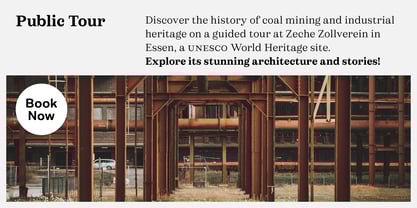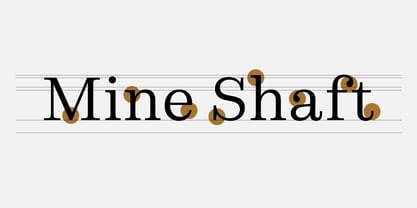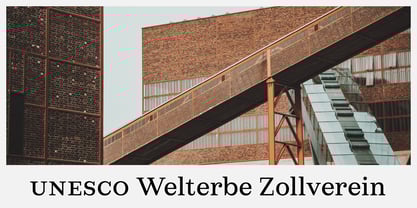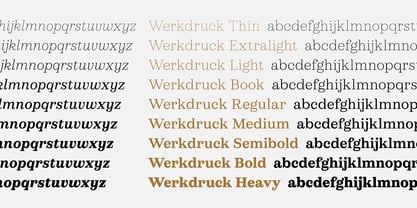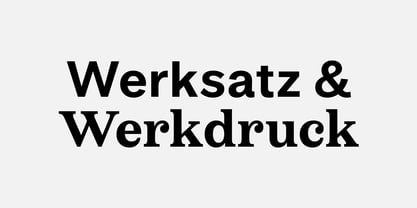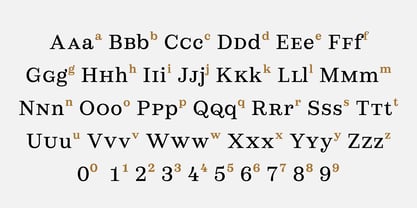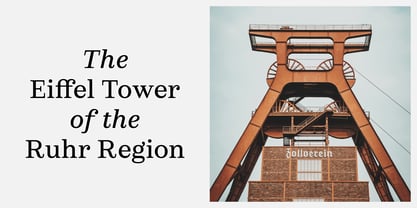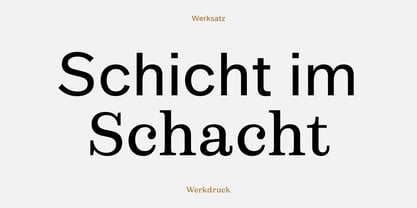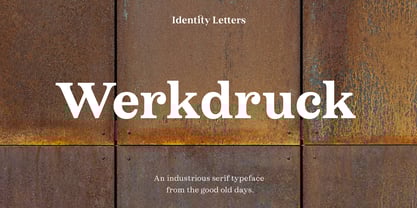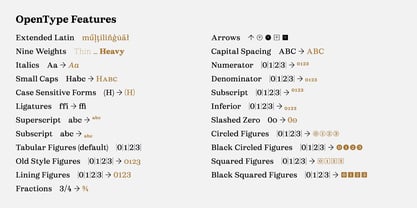
Werkdruck
by Identity Letters
The Werkdruck Font Family was designed by Moritz Kleinsorge and published by Identity Letters. Werkdruck contains 18 styles and family package options.
Werkdruck is a serif typeface from the good old times made fit for our day, threading together different sources of rational and transitional type design. A sturdy construction makes reading copy easy, while the decidedly digital curves show their strength in large sizes. Unlike its narrower turn-of-the-century predecessors, Werkdruck opts for more generous shapes with contemporary digital needs in mind, remaining legible when set small on high-resolution displays. The 9 weights of the Werkdruck family come with true italics and sport 911 glyphs each—all you need for complex typesetting. Werkdruck is the ideal serif companion for our popular sans, Werksatz: Pair these two hard-werking playmakers to create admirably self-reliant designs.